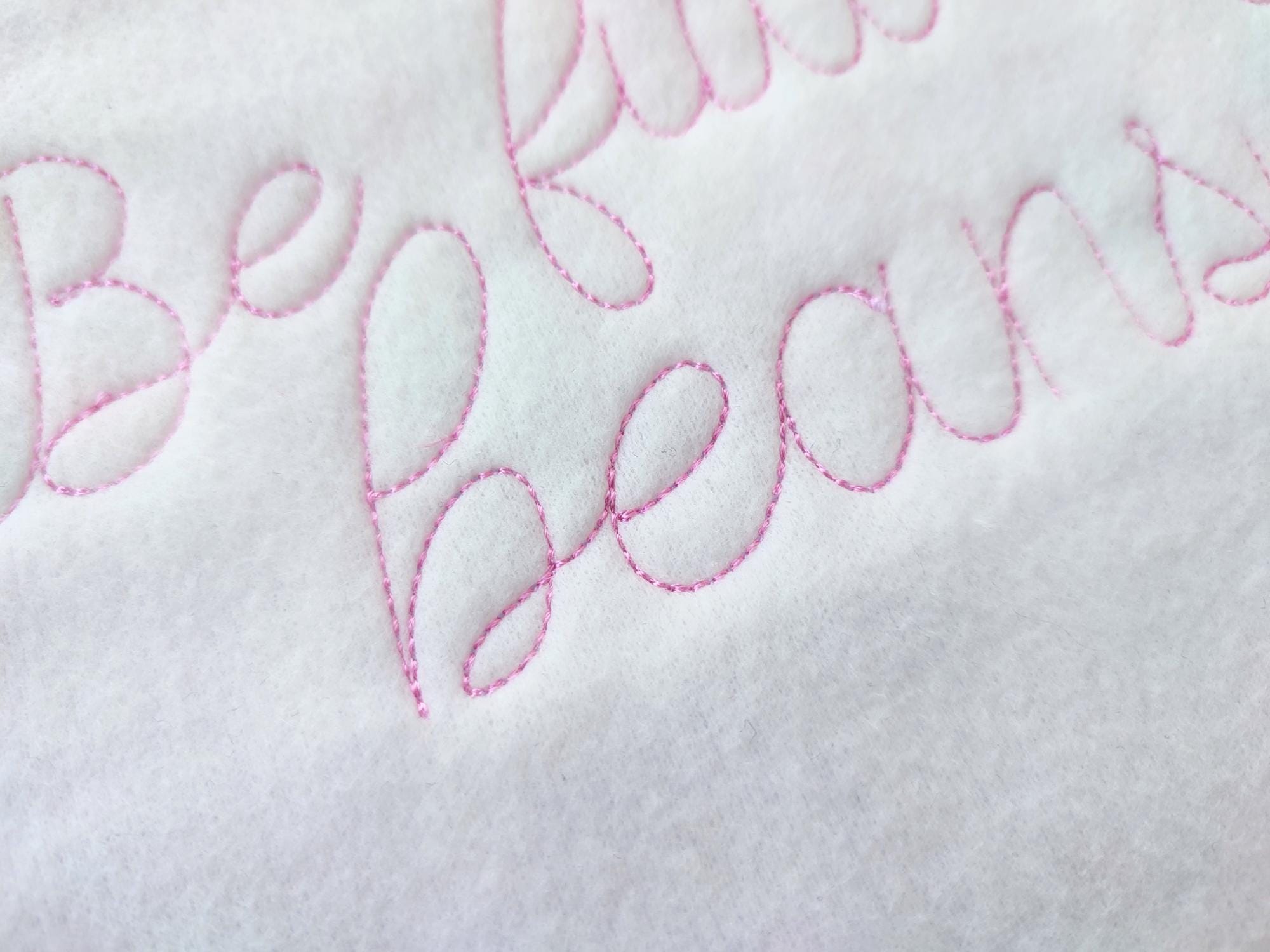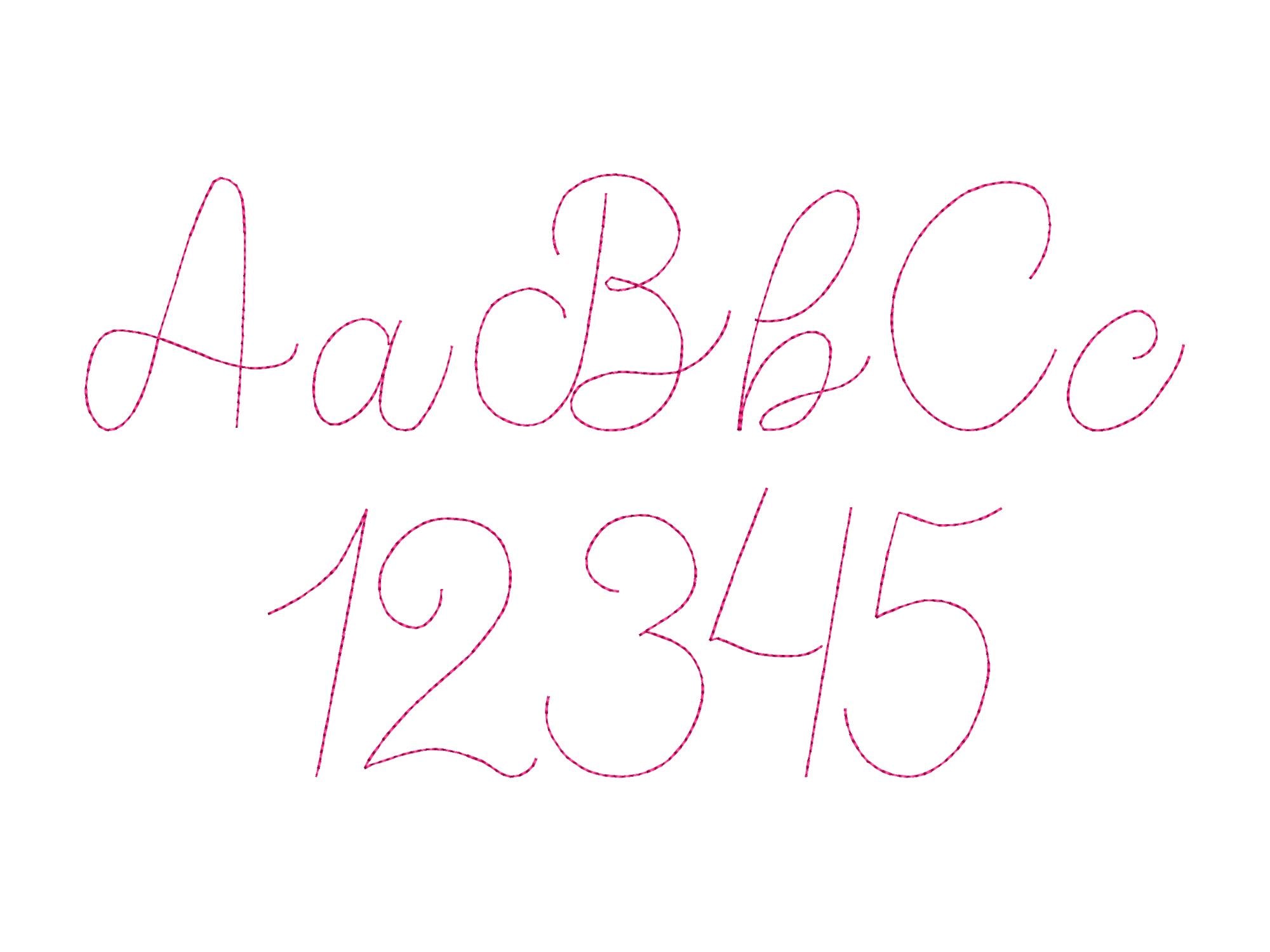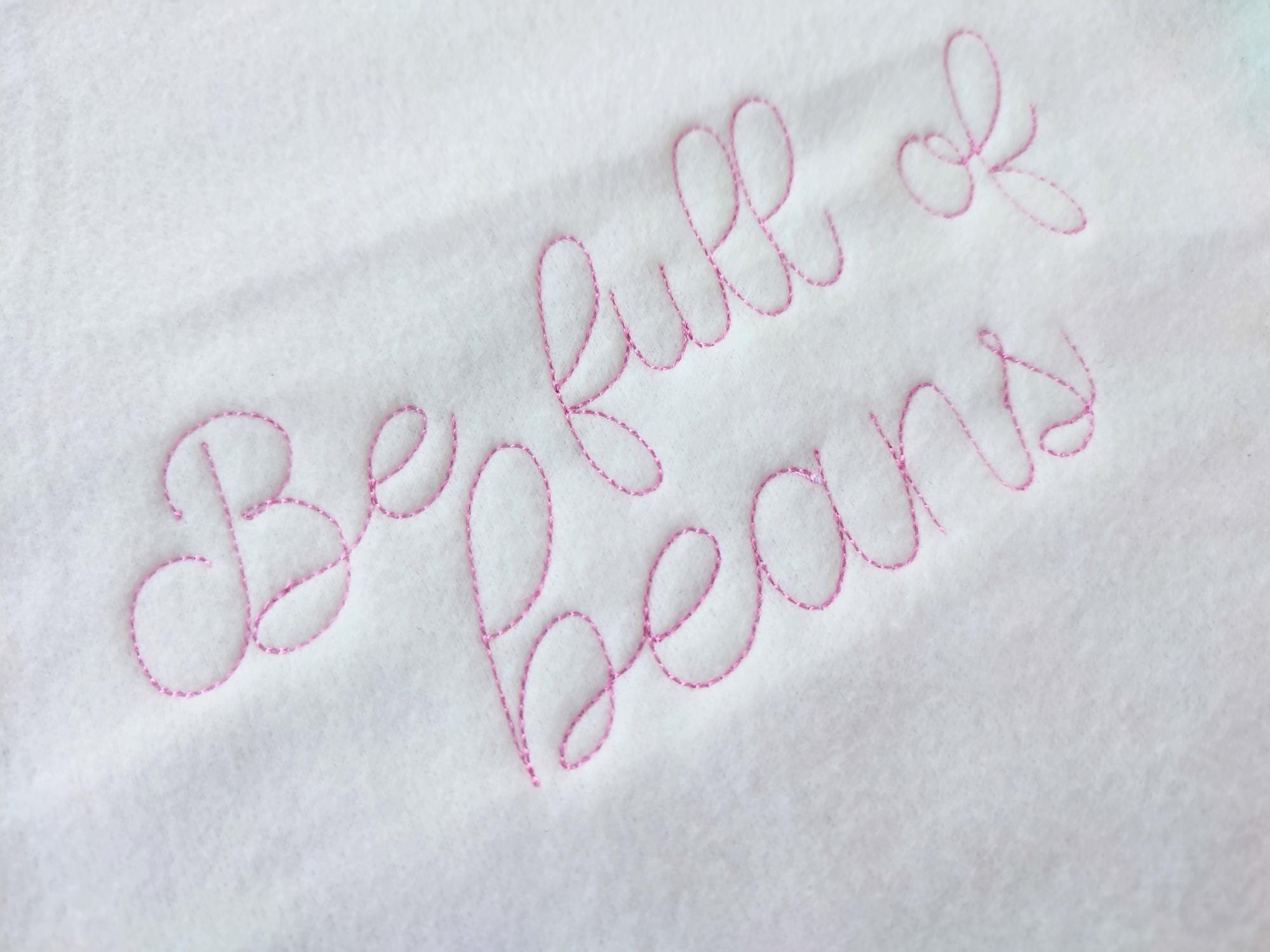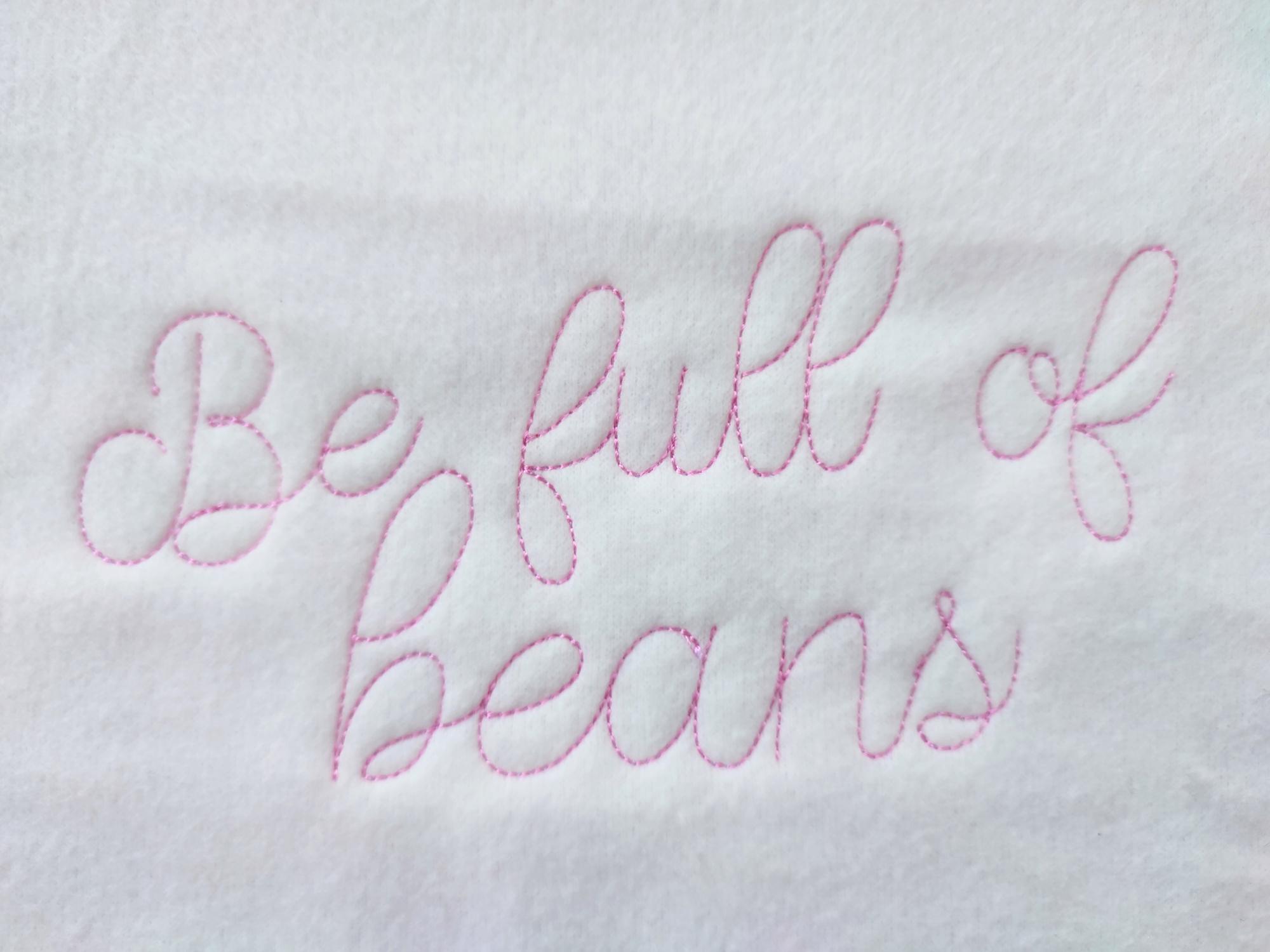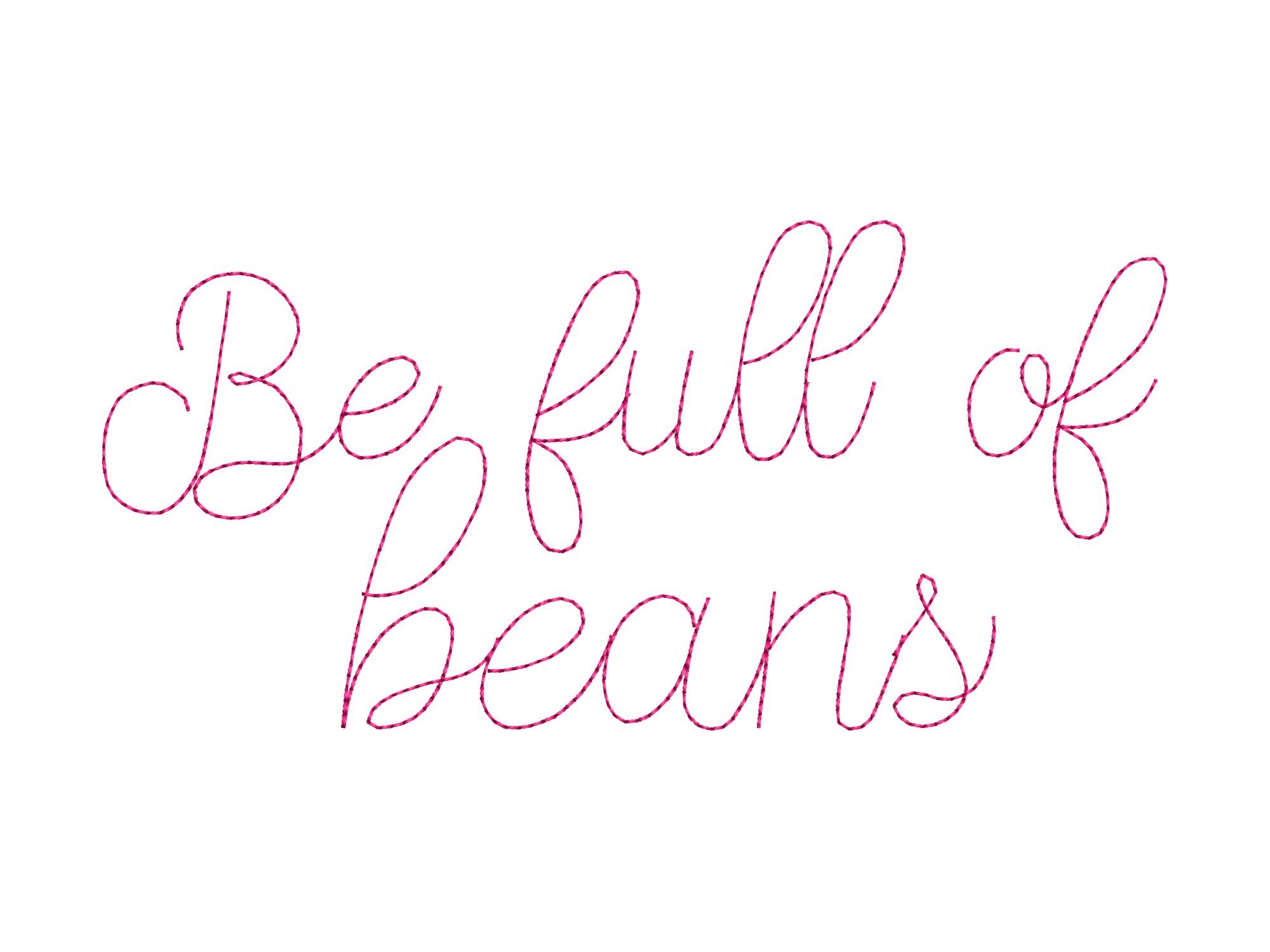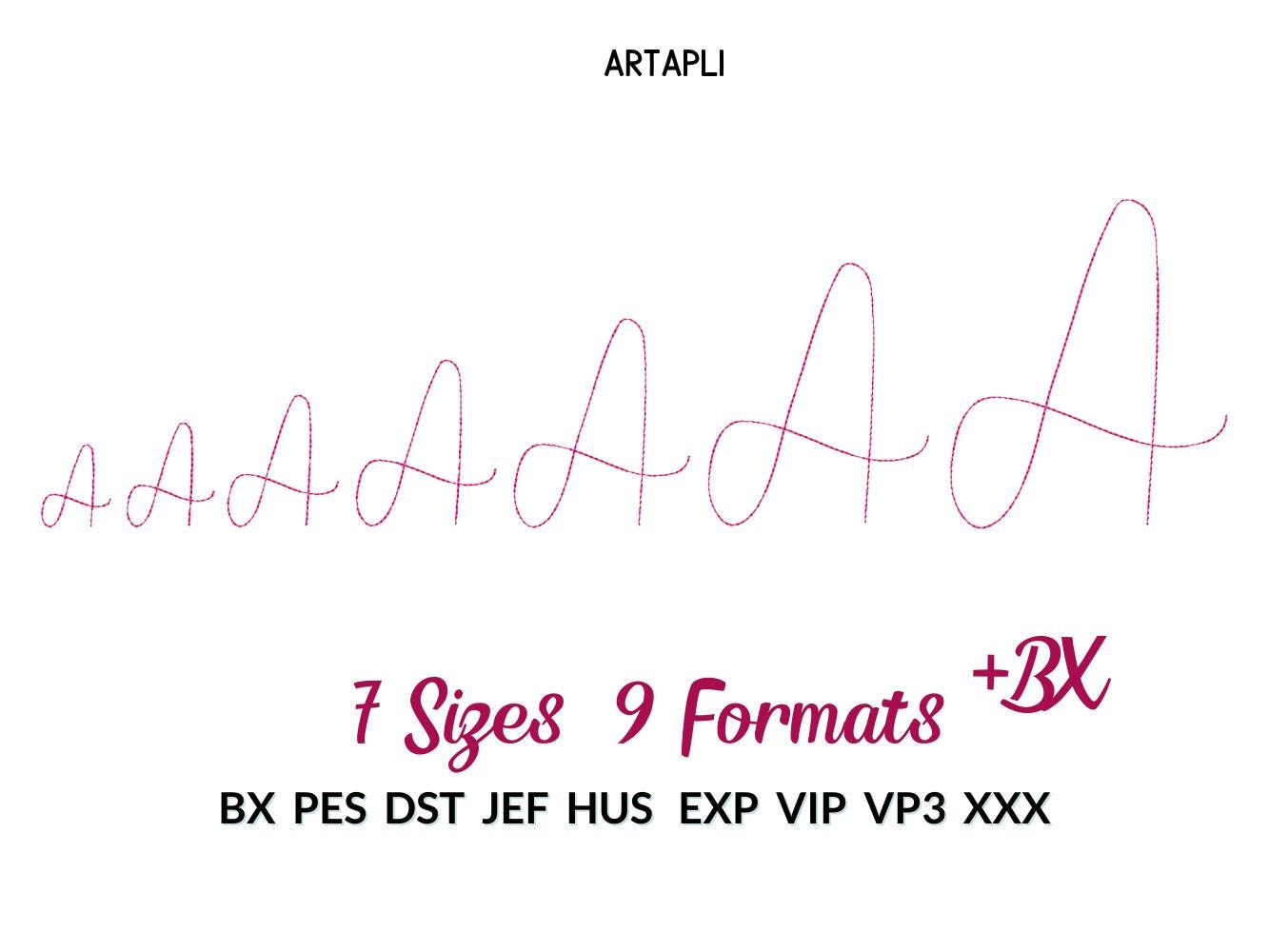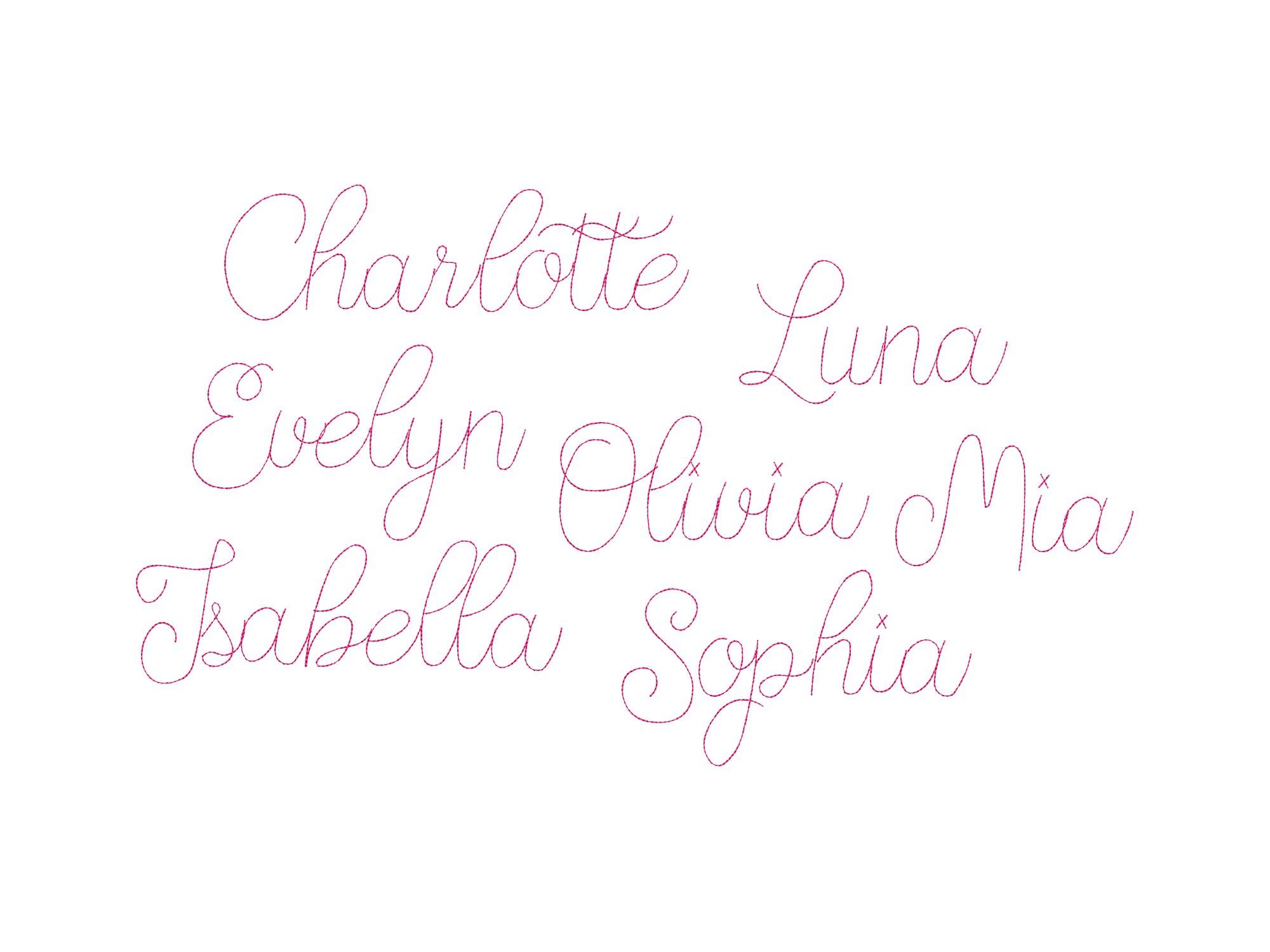
Simple quick bean stitch thin line Font machine embroidery designs multiple sizes handwritten script alphabet monogram 1.1 to 4.6 inches and BX included
1.1 inch
1.9 inches
4.6 inches
Entire alphabet: uppercase and lowercase Aa-Zz, numbers 0-9, and characters & /